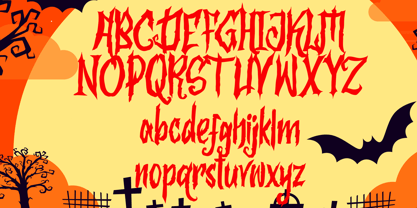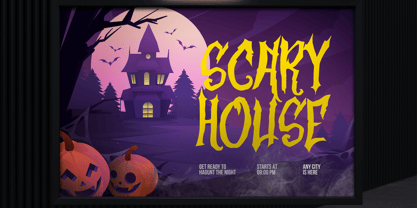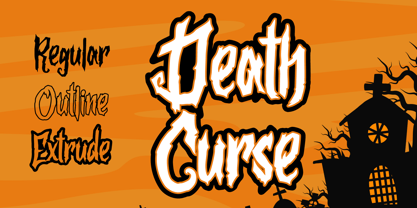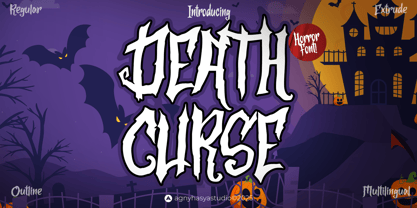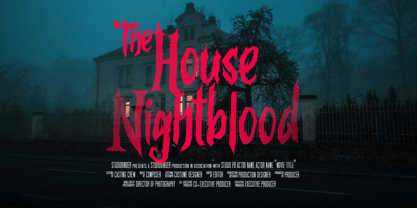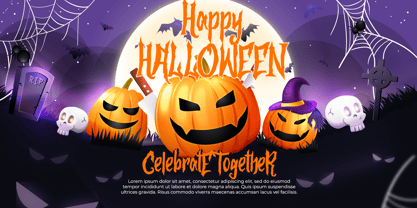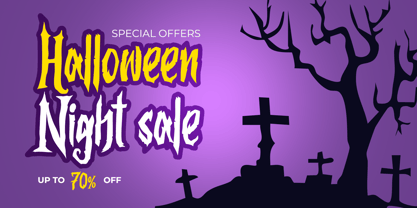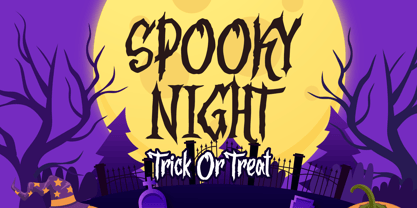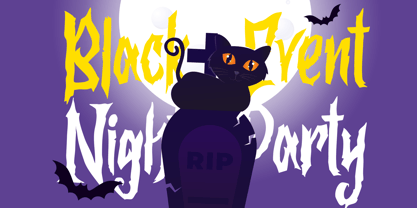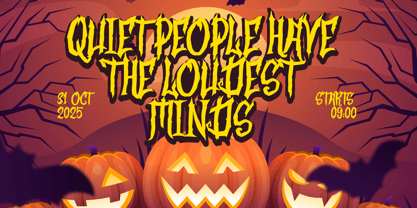
Death Curse
La familia tipográfica Death Curse fue diseñada por Firman Maulana y publicada por Agny Hasya Studio. Death Curse contiene 3 estilos y opciones de paquete familiar.
Death Curse is a horror font twisted with root-like details; each letter feels carved from dark forests where old witches whisper curses. Perfect for Halloween posters, occult titles, and designs that demand a chilling, mystical touch, from occult invitations to dark fantasy covers, This font turns your work into a chilling relic of terror. With three versatile styles, Regular, Outline, and Extrude, Death Curse lets you layer, mix, and experiment for endless haunting variations. Stay wicked, stay tangled, and keep creating nightmares. Warm regards, agnyhasyastudio